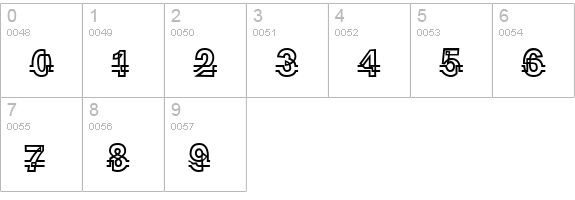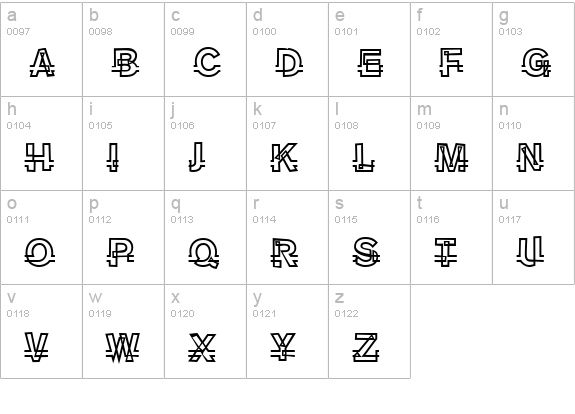
Joggle Regular Font Details
Joggle Regular is the standard, neutral variant in the Joggle typeface family \xE2\x80\x94 well suited to general body text, paragraphs, and standard typographic work.